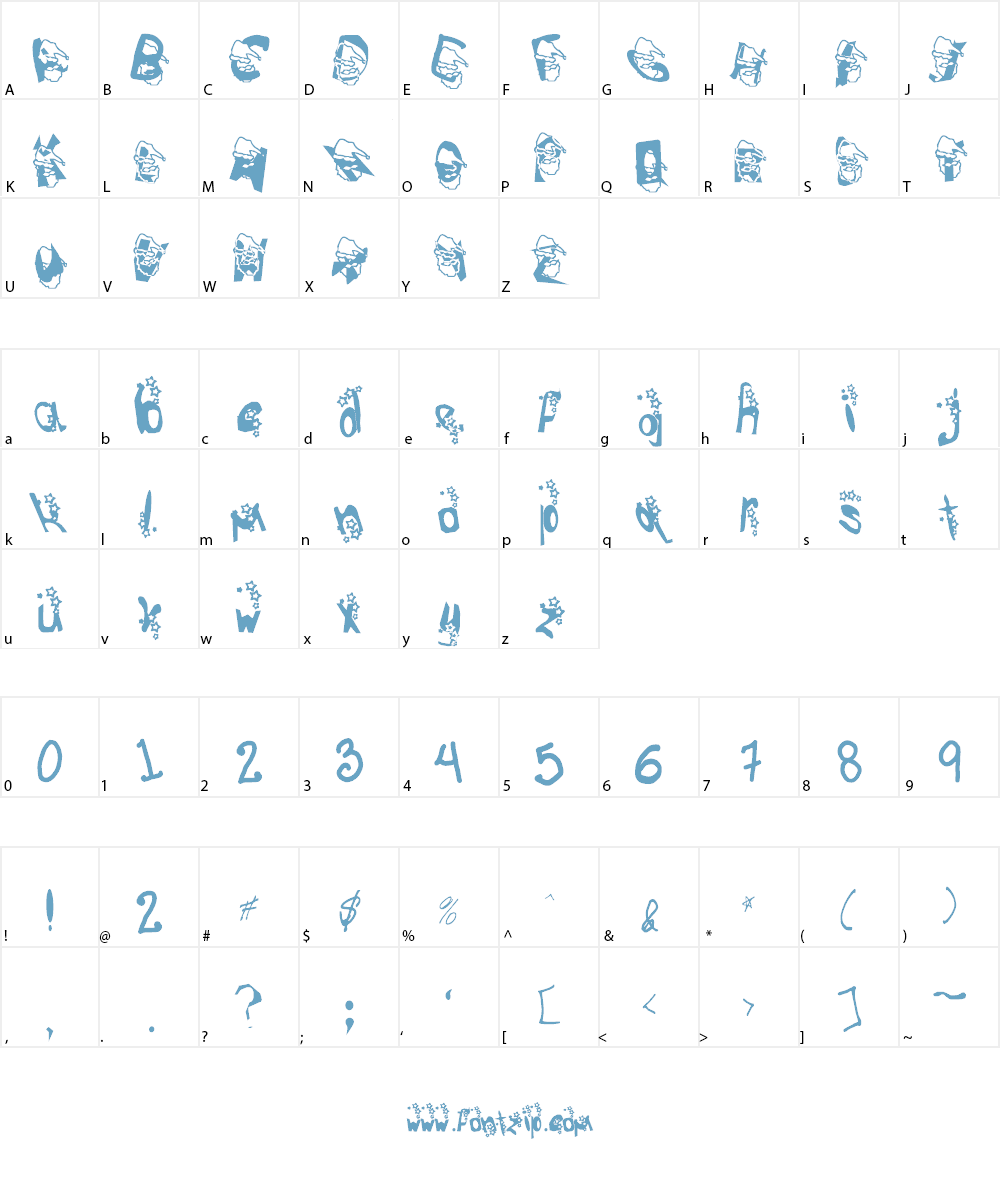
You can use Funny Santa Claus font to decorate your Christmas greetings on cards, T-shirts, mugs, labels, anything. I love Santa Claus and I love Christmas so I will be using this font myself for all of these things. Enjoy it. Please contribute if you would like to use this font for commercial reasons.